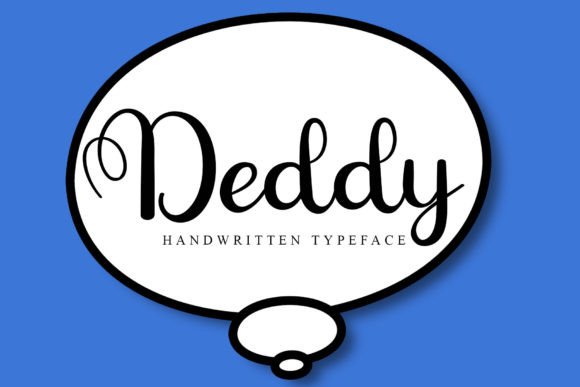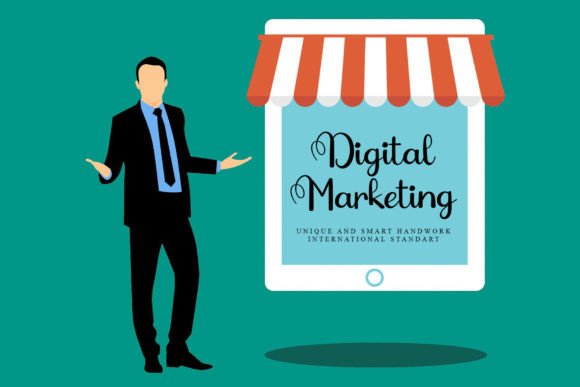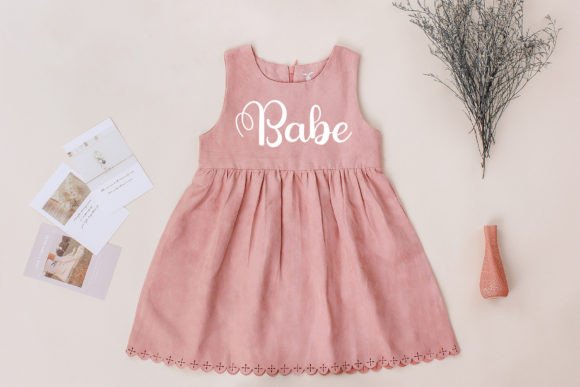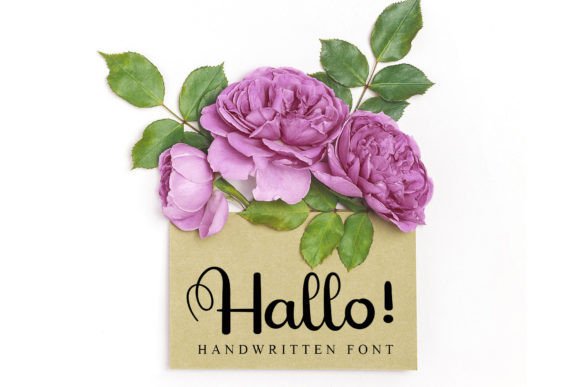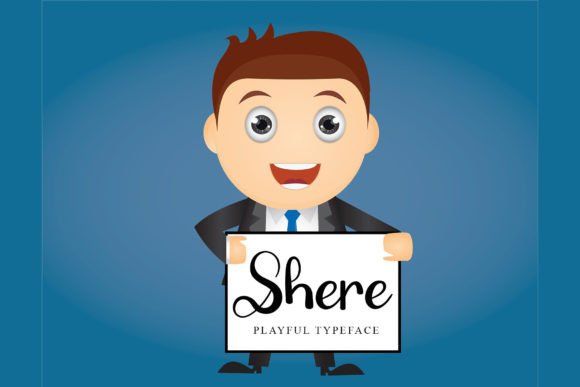
About Deddy
Deddy is a unique and elegant font specially designed just for you. This font is made with a professional hand touch and is perfect for your projects. Use it for wedding invitations, quotes, branding, logos, websites, fashion, and more.